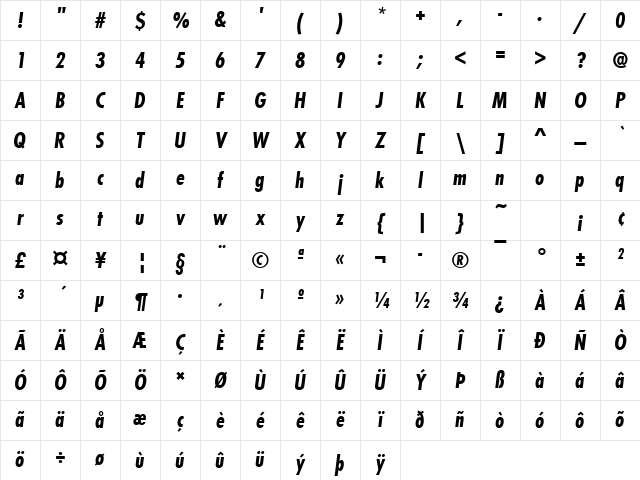
Complete FuturaTBolCon Italic glyph index. Displaying only characters natively supported by FuturaTBolCon Italic font.
FuturaTBolCon has a distinctly futuristic character, with geometric precision and clean angles that feel at home in technology, gaming, and sci-fi contexts. The slanted form adds forward momentum and visual energy.
Pro Tip: Try FuturaTBolCon with generous letter-spacing in UI labels and navigation - the geometric forms benefit from room to breathe.